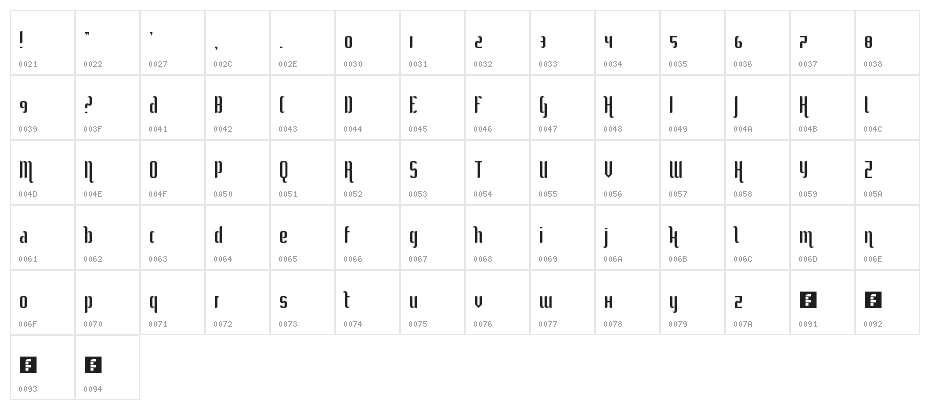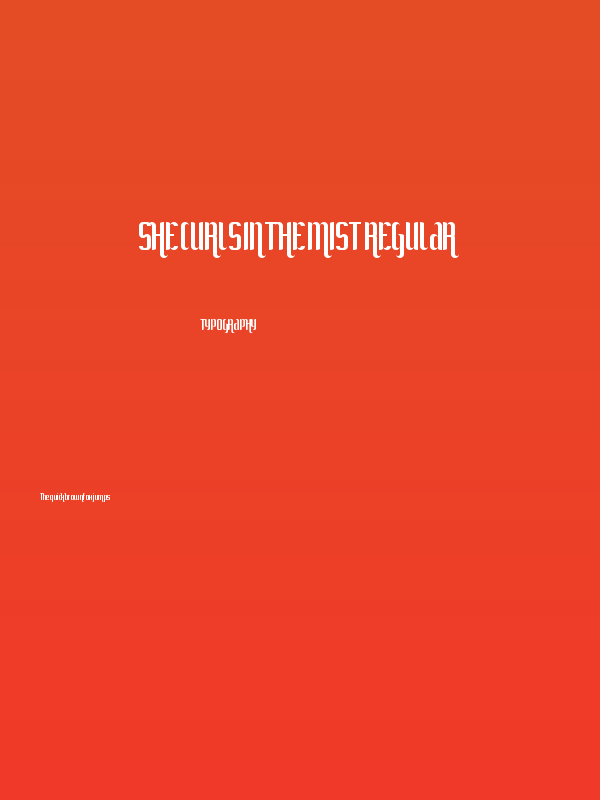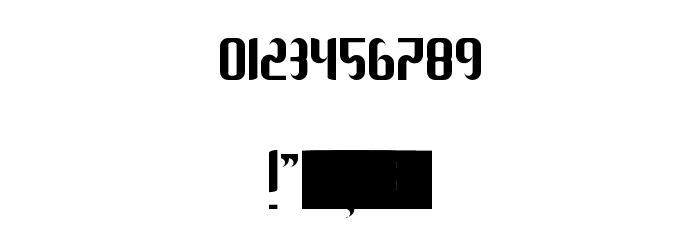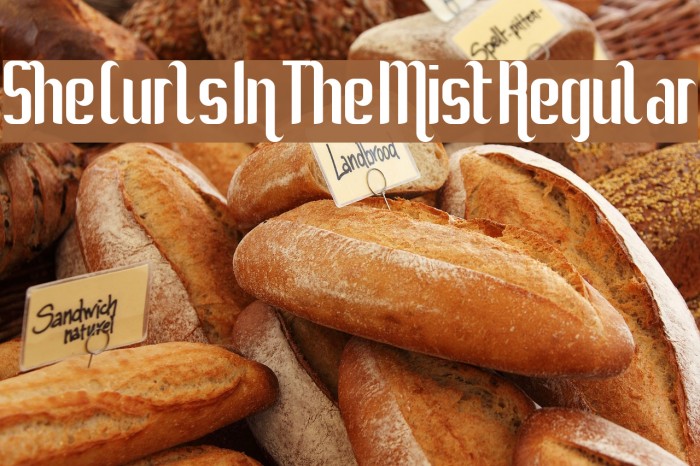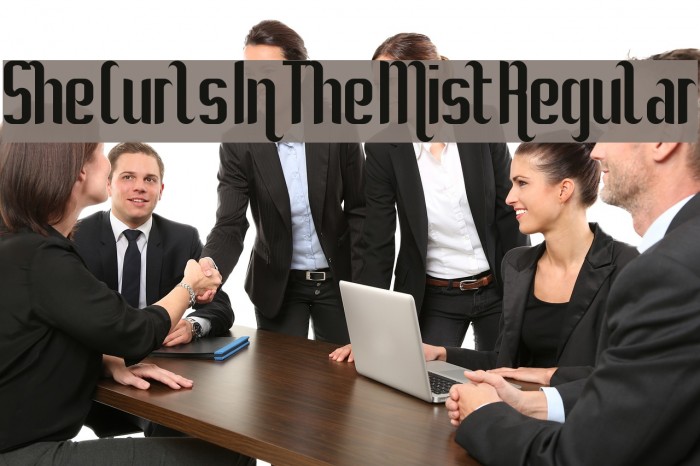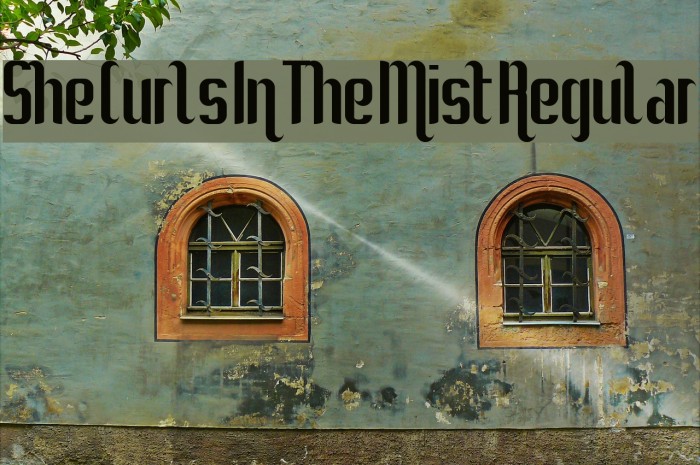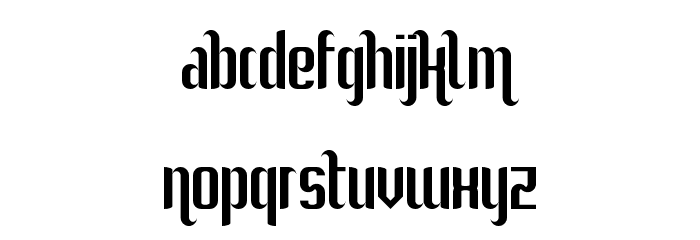
She Curls In The Mist Regular Font
She Curls In The Mist Regular Description
This font features a unique blend of modern and vintage styles, characterized by its bold, elongated letterforms with sharp edges and subtle curves. The uppercase letters exhibit a strong presence with their tall, narrow shapes, while the lowercase letters maintain a consistent height, providing a cohesive look. The numbers are distinct and easily readable, complementing the overall design. Special characters are crafted with the same attention to detail, ensuring they fit seamlessly with the rest of the typeface. The font's high contrast between thick and thin strokes adds a dynamic feel, making it suitable for eye-catching designs.
| Overall Style | Modern, Vintage |
| Proposed Projects | Ideal for branding, posters, album covers, and any project requiring a striking, memorable typeface. |